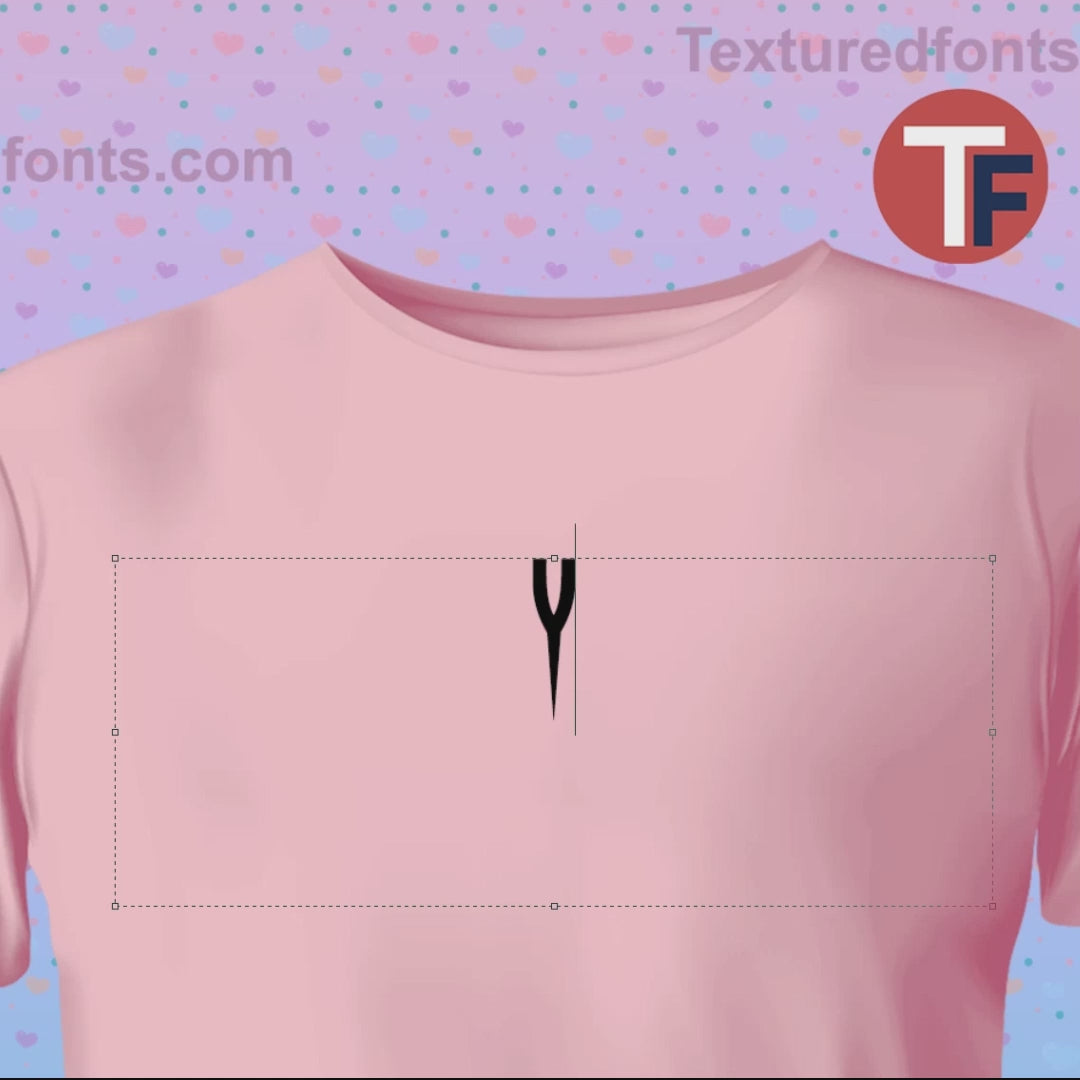
Monster's Creation Font
Monster's Creation Font: Dark and Dramatic
Channel the iconic horror and Gothic drama of a classic tale about a man-made monster with the Monster's Creation font. This typeface is steeped in the mysterious and eerie ambiance that defines the legendary story of scientific ambition gone awry.
The Monster's Creation font features jagged, uneven lines that evoke the unsettling and patched-together essence of the creature itself. Its stark, impactful style is perfect for capturing a haunting aesthetic and enhancing any project that requires a touch of vintage horror.
Ideal for horror-themed events, classic literature tributes, or any creative work looking to convey a sense of timeless terror, the Monster's Creation font ensures your designs resonate with intensity and foreboding.